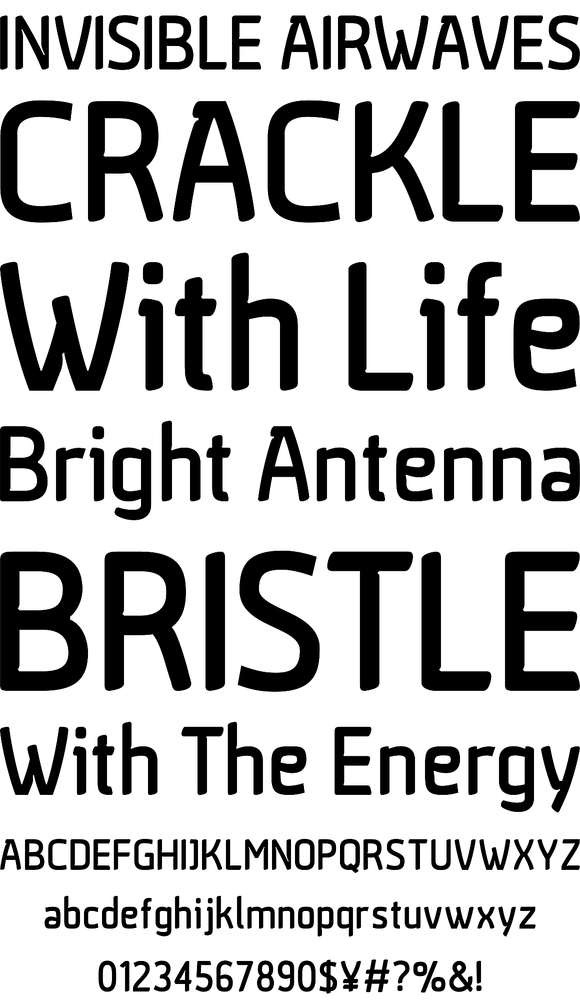
Foundry: Mateusz Machalski
Aneba is a geometric sans typeface with natural feel. The low contrast and high x height is perfect for longer text and headlines. Aneba contains 5 weights in 10 styles.